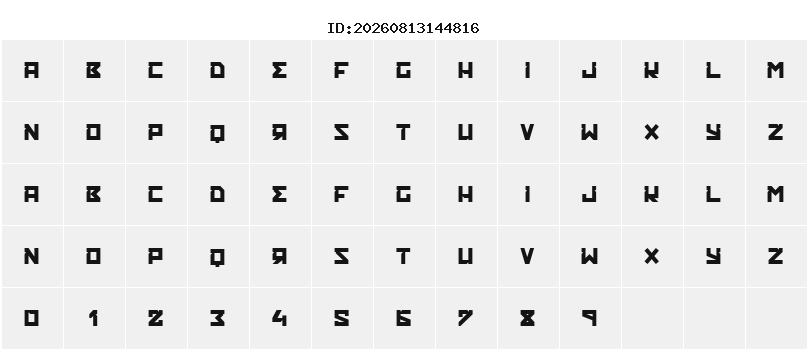
• Font Name: RUSKOF LIGHT
• Full Font Name: RUSKOF LIGHT
• Manufacturer: M.K.V
About RUSKOF LIGHT.ttf
RUSKOF LIGHT.ttf is a modern, elegant sans-serif font designed for ultimate readability and visual harmony. Perfect for branding, headlines, web design, and print materials.